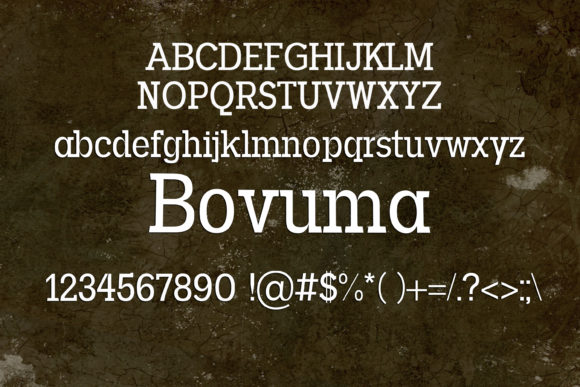
The Bovuma Font: A Friendly and Modern Serif with a Unique Character
I’ll never forget the moment I stumbled upon the Bovuma font. I was working on a project for a client who wanted a modern, yet approachable look for their branding. I had spent hours scouring the internet for the perfect font, but nothing seemed quite right. That was until I came across Bovuma – a friendly and modern serif font with a unique character that instantly caught my eye. ✨
- ✅ Unique character: Bovuma has a distinct personality that sets it apart from other serif fonts.
- ✅ Modern feel: The font has a sleek, contemporary look that’s perfect for modern brands.
- ✅ Friendly vibe: Bovuma exudes a warm and approachable feel, making it perfect for brands that want to connect with their audience.
- ✅ Highly legible: The font is easy to read, even at small sizes.
While Bovuma is an amazing font, it’s not perfect. Here are a few things to keep in mind: 🤔
- ⚠️ Limited language support: Bovuma currently supports a limited number of languages, so make sure to check the font’s specifications before using it for a project.
- ⚠️ Not suitable for body text: While Bovuma is highly legible, it’s best used for headlines, titles, and short paragraphs. For longer body text, you may want to consider a different font.
The Designer Inspiration Behind Bovuma
Bovuma was designed with the goal of creating a modern serif font that’s both friendly and unique. The font’s creator was inspired by the latest design trends and sought to create a font that would appeal to designers and non-designers alike. While the exact story behind Bovuma’s creation is unknown, it’s clear that the font was designed with love and care. ❤️
Q: What is the Bovuma font?
A: Bovuma is a friendly and modern serif font with a unique character.
Q: What is Bovuma suitable for?
A: Bovuma is perfect for headlines, titles, and short paragraphs. It’s not recommended for body text.